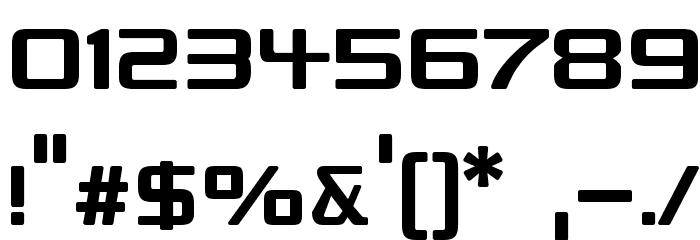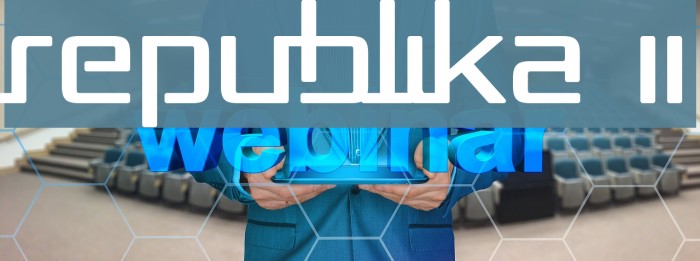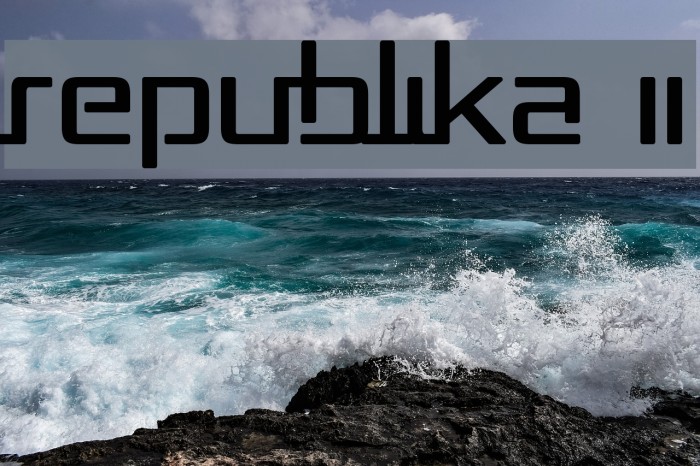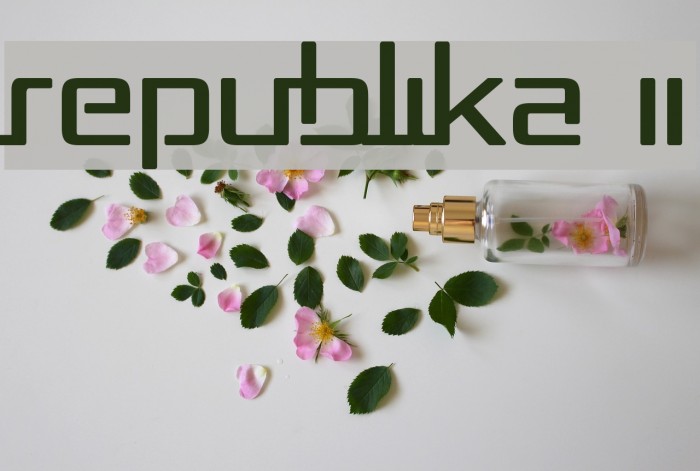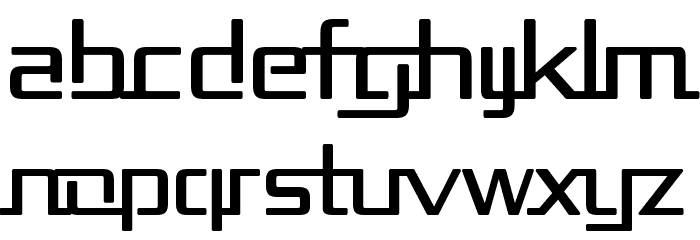
Republika II Font
Republika II Description
This font features a modern, geometric design with a strong emphasis on clean lines and a futuristic aesthetic. The characters are uniformly structured, with a consistent stroke width that gives the font a cohesive and balanced appearance. The rounded edges soften the overall look, adding a touch of approachability to its otherwise technical style. The uppercase and lowercase letters maintain a uniform height, contributing to its monospaced feel. Numbers and special characters are designed with the same precision, ensuring legibility and a seamless integration with the alphabetic characters. This font is ideal for projects that require a contemporary and sleek look, such as technology branding, digital interfaces, and modern advertising.
A modern, geometric font with clean lines and a futuristic aesthetic from Futuristic fonts.
- Proposed Projects: Ideal for technology branding, digital interfaces, and modern advertising.